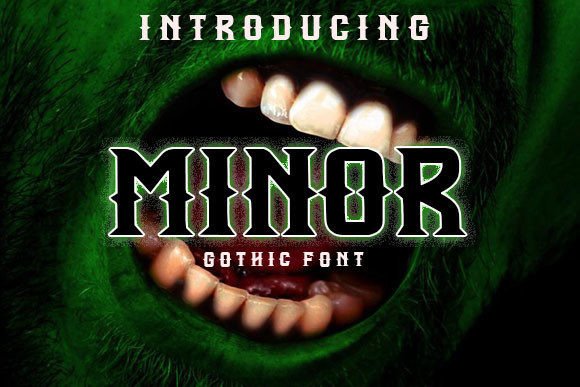
Introducing Minor Font: The Modern Blackletter Typeface for Bold Designs
In the world of typography, fonts play a crucial role in conveying messages, expressing emotions, and creating visual identities. With the vast array of fonts available, designers often seek unique and stylish typefaces to make their projects stand out. One such font that has gained attention in recent times is the Minor Font, a modern and stylish blackletter font designed to add a touch of boldness and daringness to various design projects.
What is Minor Font?
Minor Font is a contemporary blackletter typeface that boasts a sleek and edgy design. Its unique blend of traditional blackletter elements and modern twists makes it an excellent choice for designers looking to add a bold and daring touch to their work. The font’s sleek lines, sharp edges, and distinctive letterforms create a visually striking effect that is sure to grab attention.
Key Features of Minor Font
- Modern Blackletter Design: Minor Font features a modern take on traditional blackletter typography, with clean lines, sharp edges, and a distinctive style.
- Bold and Daring: The font’s bold and daring design makes it perfect for projects that require a statement piece, such as product packaging, branding, and advertising.
- Highly Versatile: Minor Font can be used for a wide range of design projects, from logos and branding to packaging, posters, and more.
- Easily Readable: Despite its bold design, Minor Font is highly readable, making it suitable for use in various contexts, including digital and print media.
Uses of Minor Font
Minor Font’s versatility and bold design make it an excellent choice for various design projects. Here are some of the ways you can use Minor Font:
Product Packaging
Minor Font is perfect for product packaging designs that require a bold and attention-grabbing typography. Its unique design ensures that your product stands out on store shelves and online.
Branding and Logo Design
Create a lasting impression with Minor Font’s bold and daring design. Use it to create logos, business cards, and other branding materials that reflect your company’s personality.
Advertising and Marketing
Minor Font’s bold design makes it an excellent choice for advertising and marketing materials, such as posters, billboards, and social media graphics.
Digital Media
Minor Font is also suitable for digital media, including website headers, social media graphics, and digital advertising.
Benefits of Using Minor Font
Using Minor Font in your design projects offers several benefits, including:
Unique Design
Minor Font’s modern blackletter design sets it apart from other fonts, ensuring that your design project stands out from the crowd.
Improved Readability
Despite its bold design, Minor Font is highly readable, making it suitable for use in various contexts, including digital and print media.
Versatility
Minor Font can be used for a wide range of design projects, from logos and branding to packaging, posters, and more.
Time-Saving
With Minor Font, you can create professional-looking designs quickly and easily, saving you time and effort.
Tips for Using Minor Font Effectively
To get the most out of Minor Font, here are some tips to keep in mind:
Use it Boldly
Minor Font is designed to be bold and daring, so don’t be afraid to use it in large sizes or in combination with other bold design elements.
Pair it with Simple Backgrounds
Minor Font’s bold design works best with simple backgrounds that don’t compete with the font. Use it with plain colors, gradients, or textures to create a striking effect.
Experiment with Colors
Minor Font looks great in various colors, so experiment with different hues and shades to find the perfect combination for your design project.
Consider Legibility
While Minor Font is highly readable, it’s essential to consider legibility when using it in your design project. Ensure that the font size and color combination work well together to create a clear and easy-to-read design.
In conclusion, Minor Font is a modern and stylish blackletter font that offers a bold and daring design perfect for various design projects. Its versatility, readability, and unique design make it an excellent choice for designers looking to create striking and memorable designs. With its wide range of uses and benefits, Minor Font is sure to become a go-to font for designers seeking to add a touch of boldness and sophistication to their work.